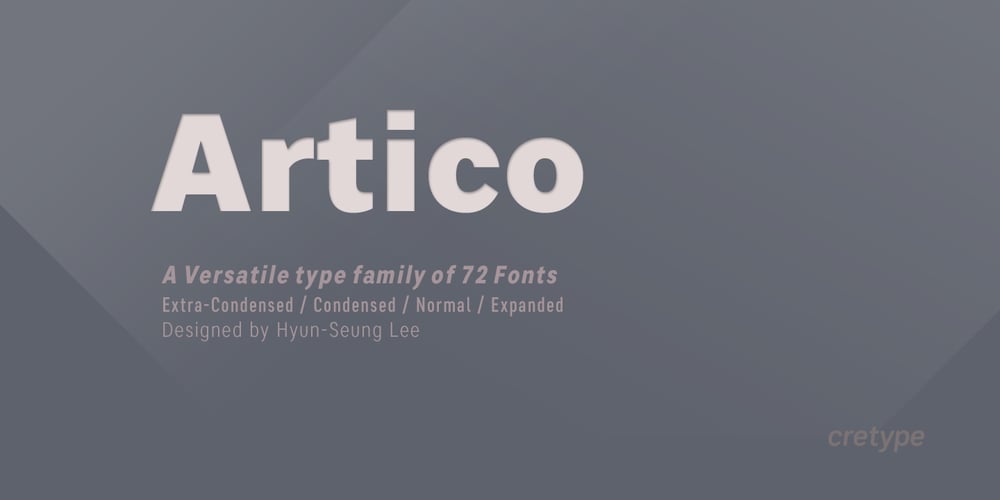
Artico Font Family was designed by Hyun-Seung Lee and published by cretype. Artico contains 72 styles and family package options. Artico Family is a modern sans-serif typeface that is clean, simple and highly readable. Letters in this type family are designed with genuine neo-grotesque and neutral shapes without any decorative distractions. The spaces between individual letter forms are precisely adjusted to create the perfect typesetting. Artico is versatile type family of 72 fonts. Artico family consists of 9 weights (Thin, ExtraLight, Light, Regular, Medium, Bold, ExtraBold, Heavy & Black) and 4 widths (Extra Condensed, Normal & Expanded) with their corresponding italics. The Open Type fonts contain complete Latin 1252, Cyrillic, Central European 1250, Turkish 1254 character sets. Each font includes proportional figures, tabular figures, numerators, denominators, superscript, scientific inferiors, subscript, fractions and case features. We highly recommend it for use in books, web pages, screen displays, and so on.